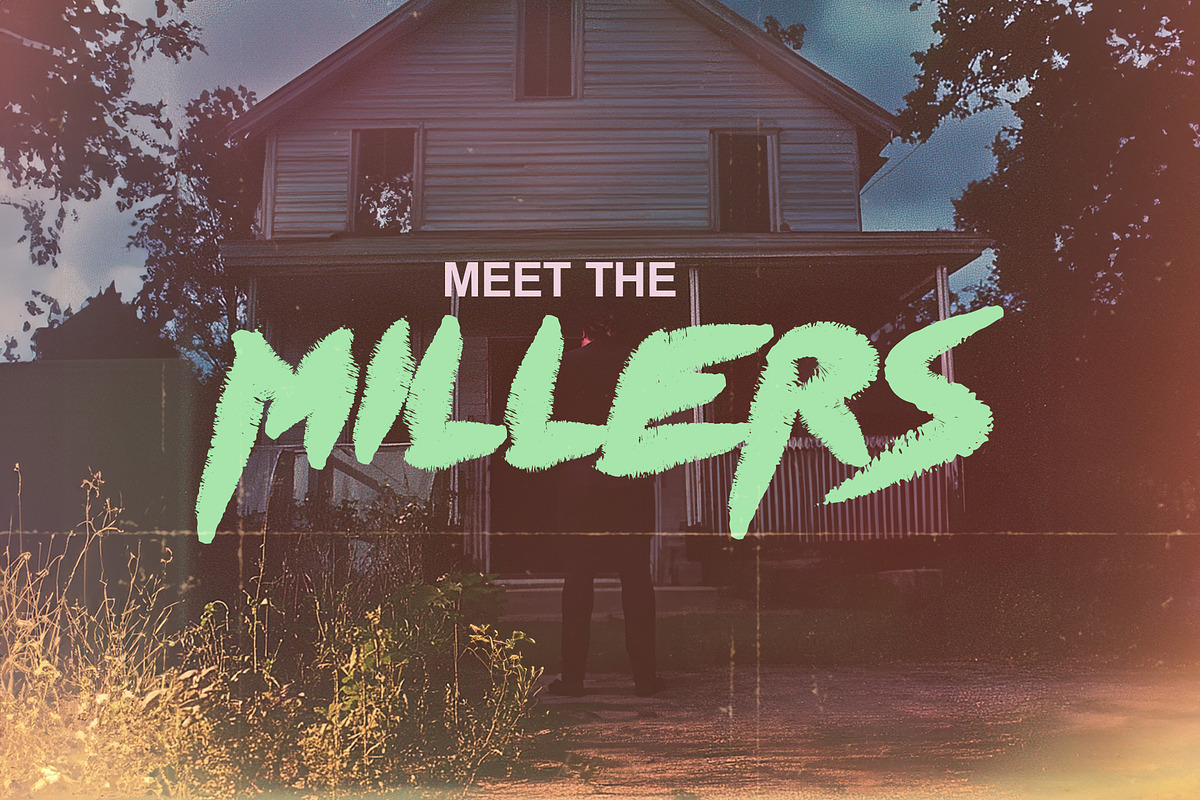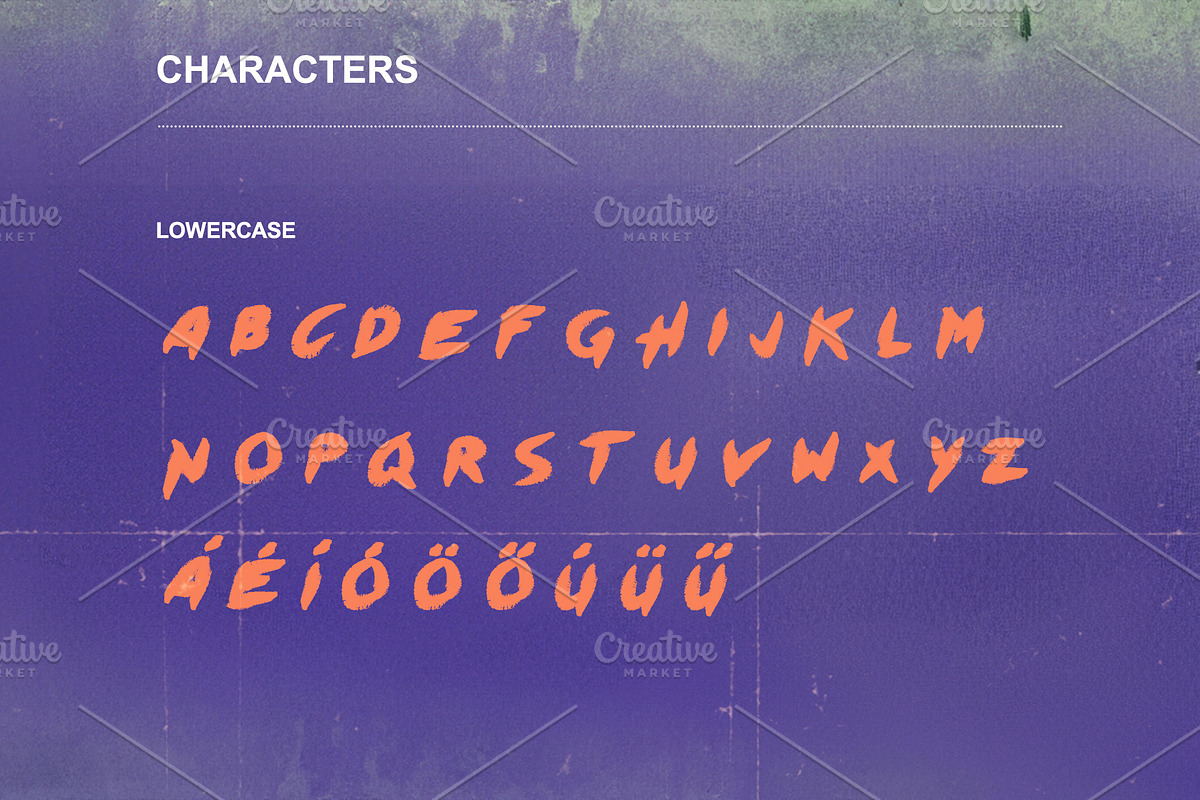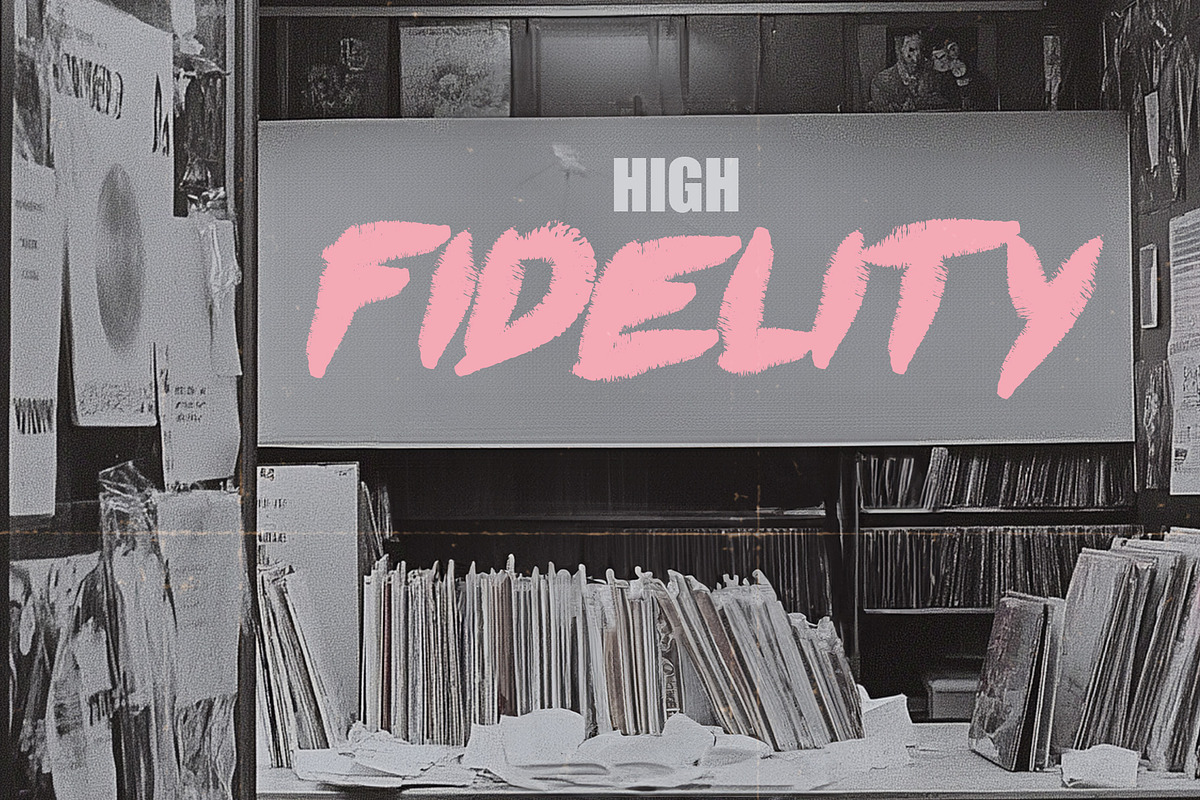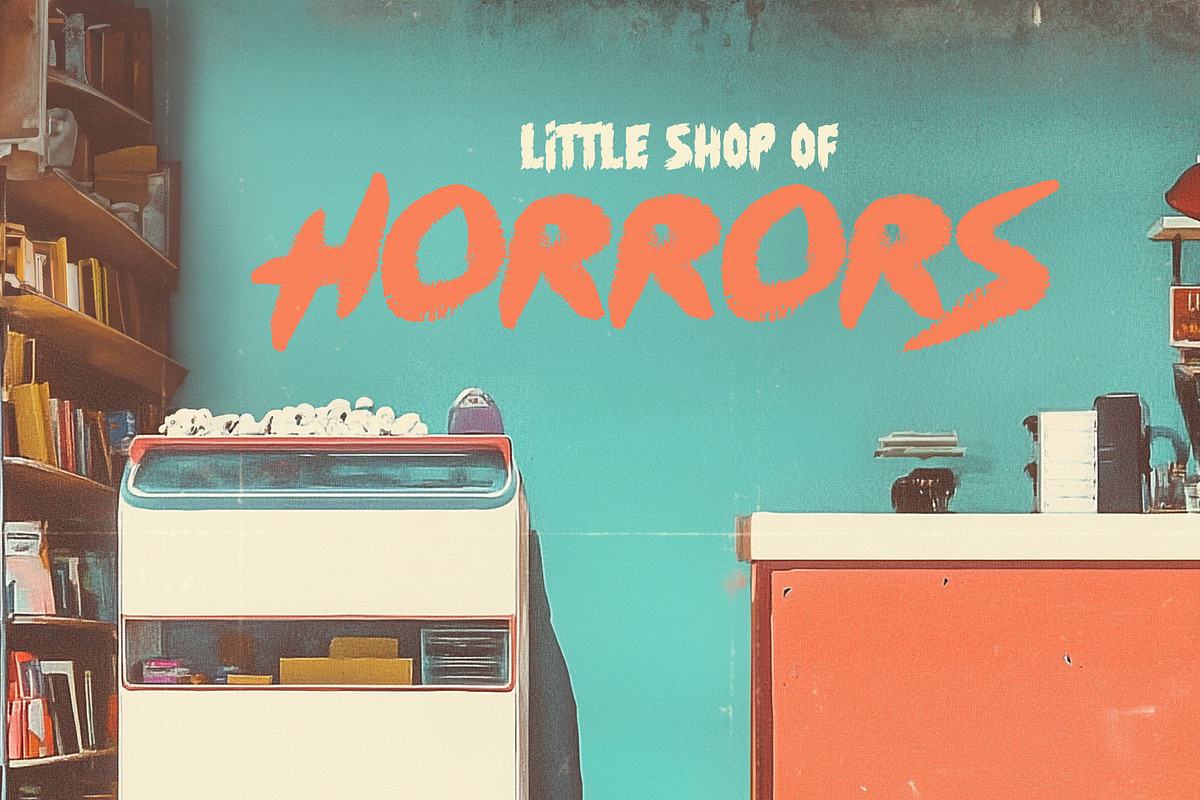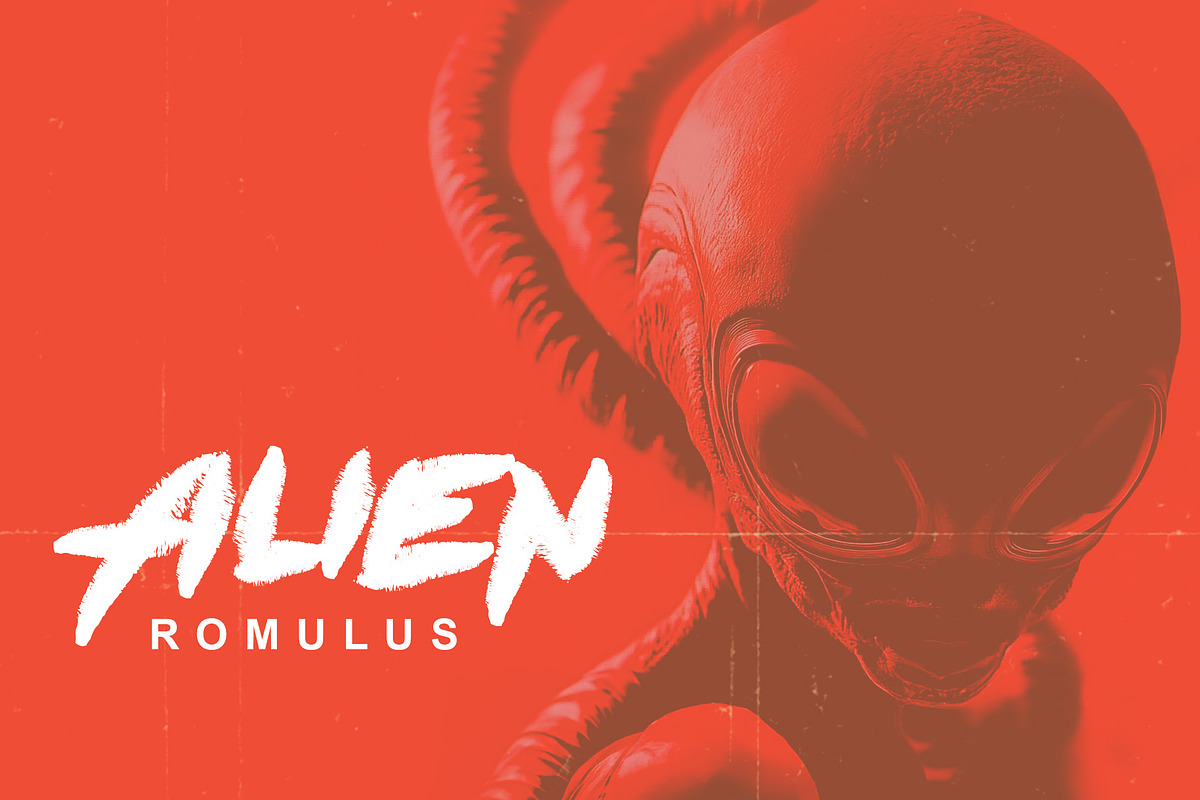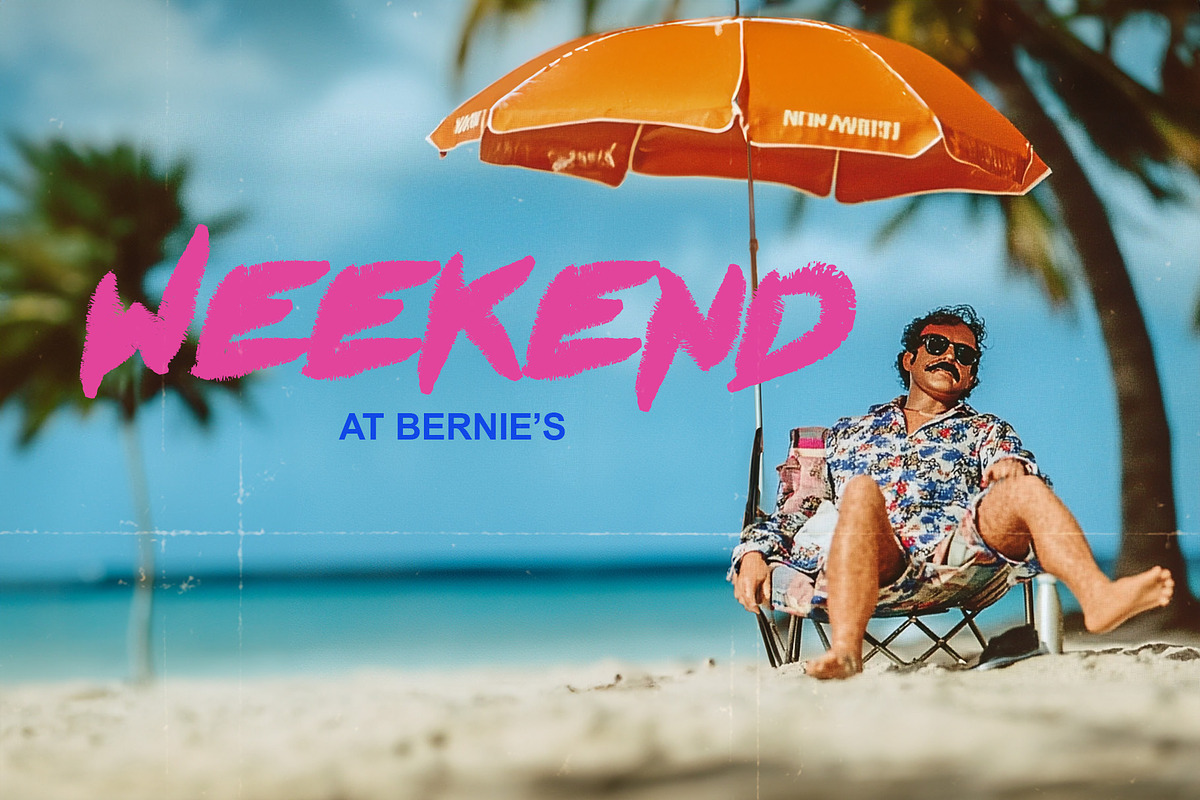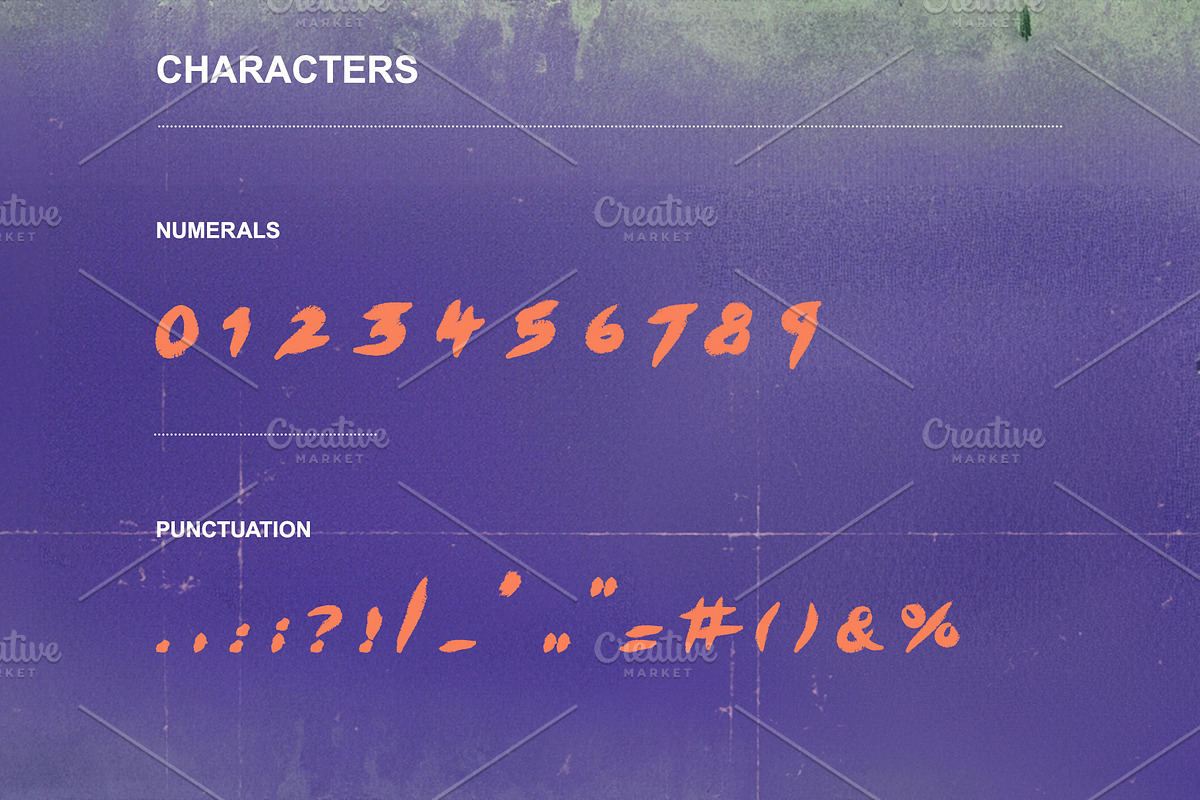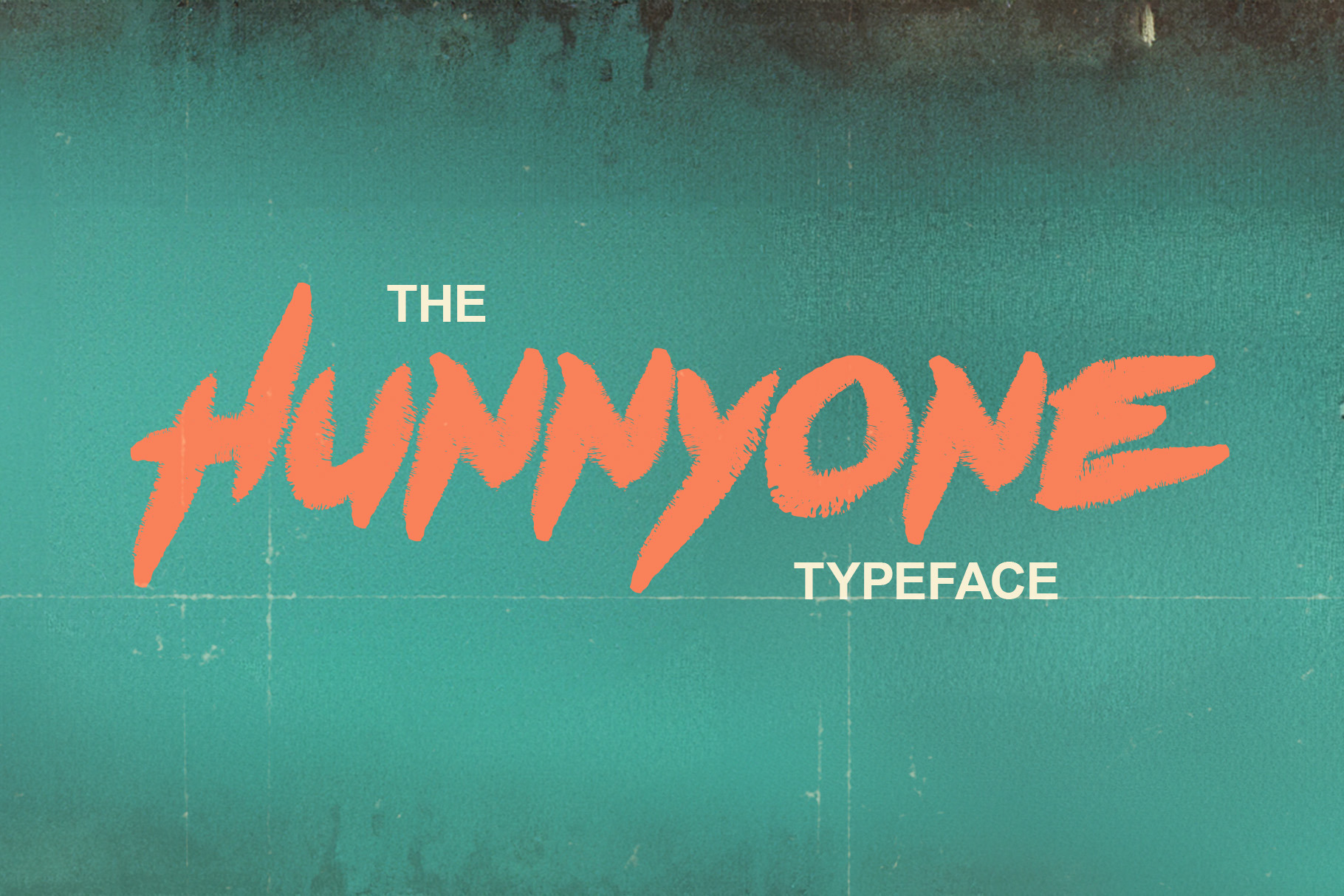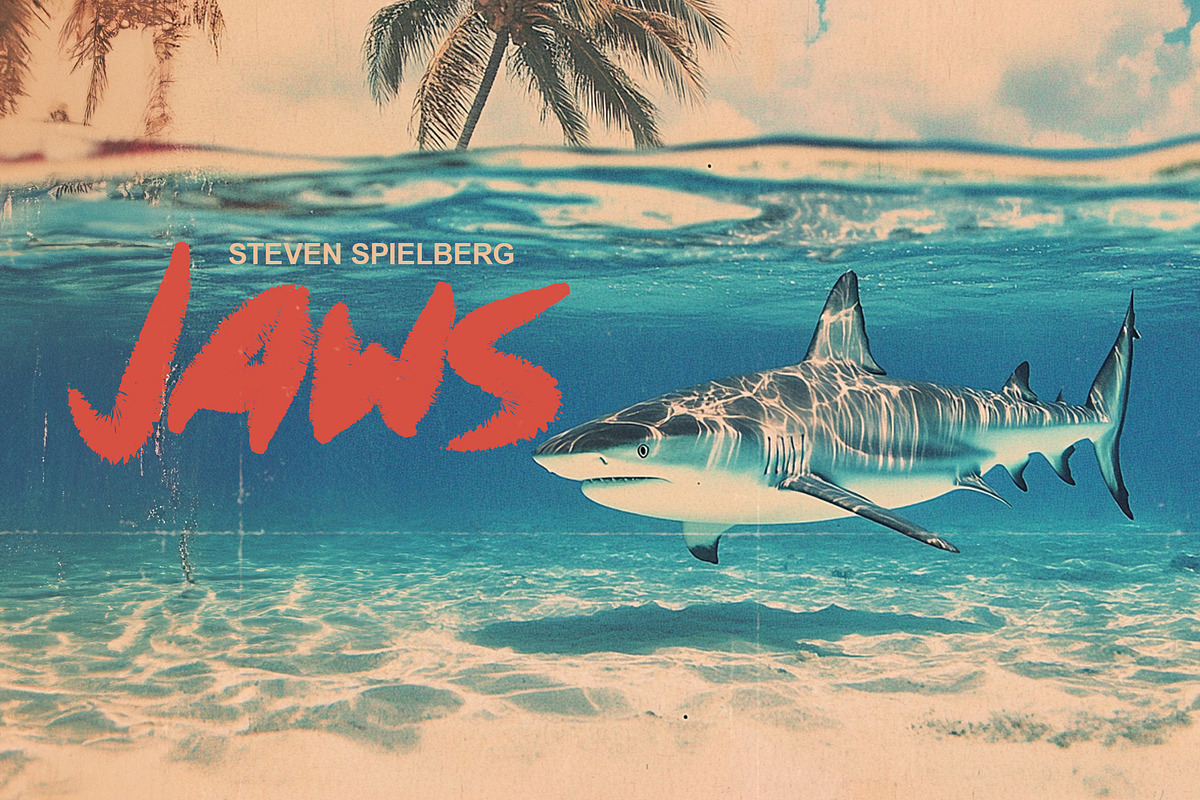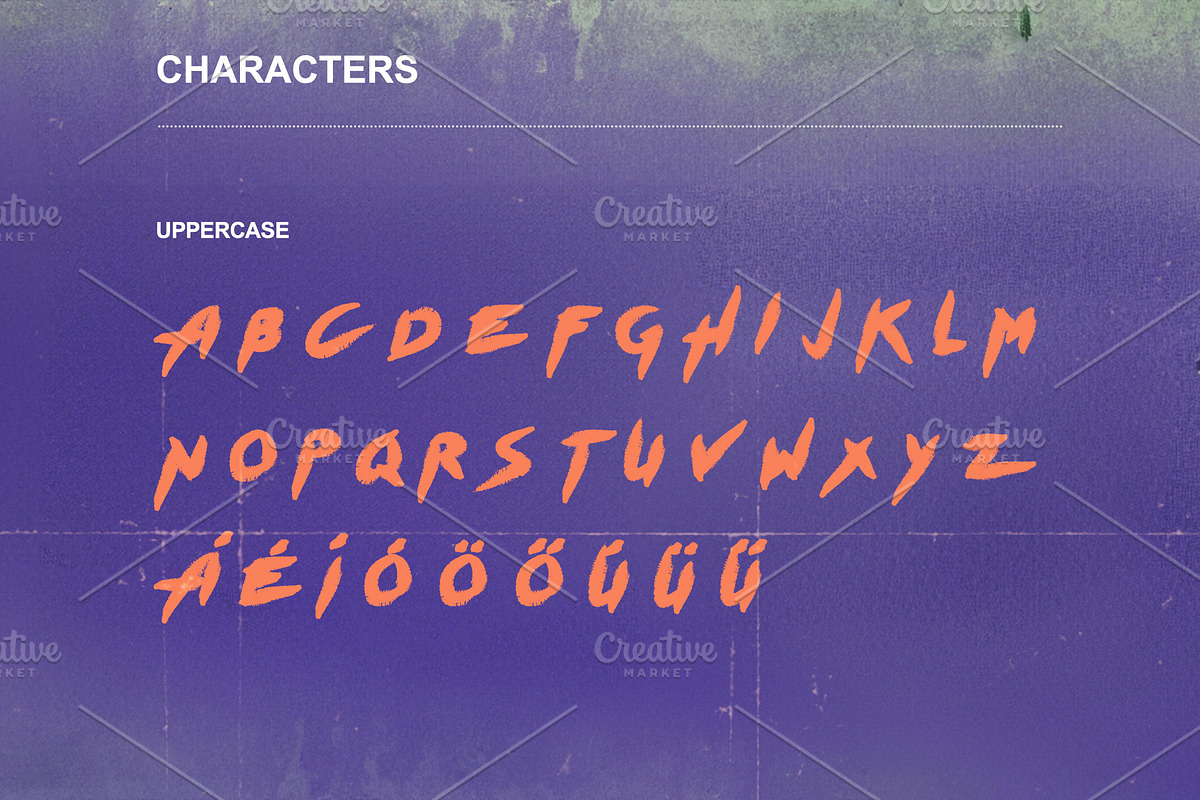
The HunnyOne typeface
70s style is pretty cool. Use it with love for everything.
- Punctuations
- Hungarian letters
It contains almost every characters.